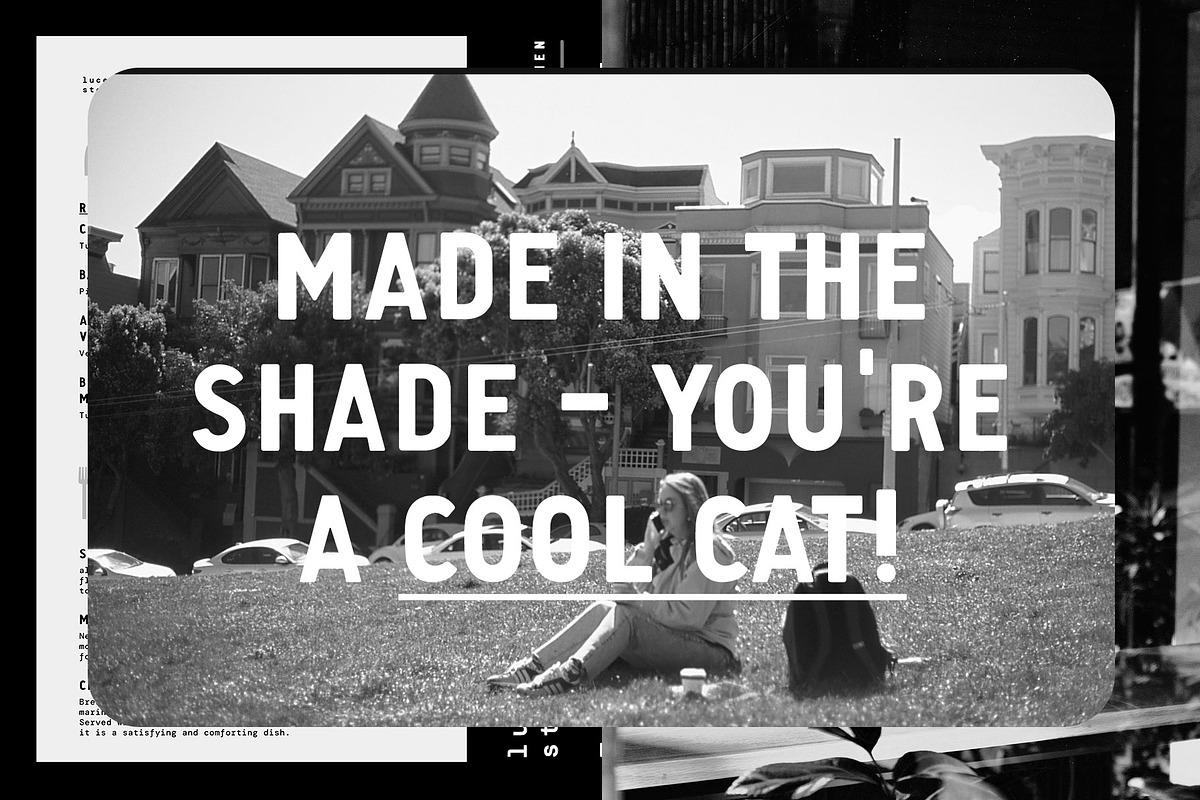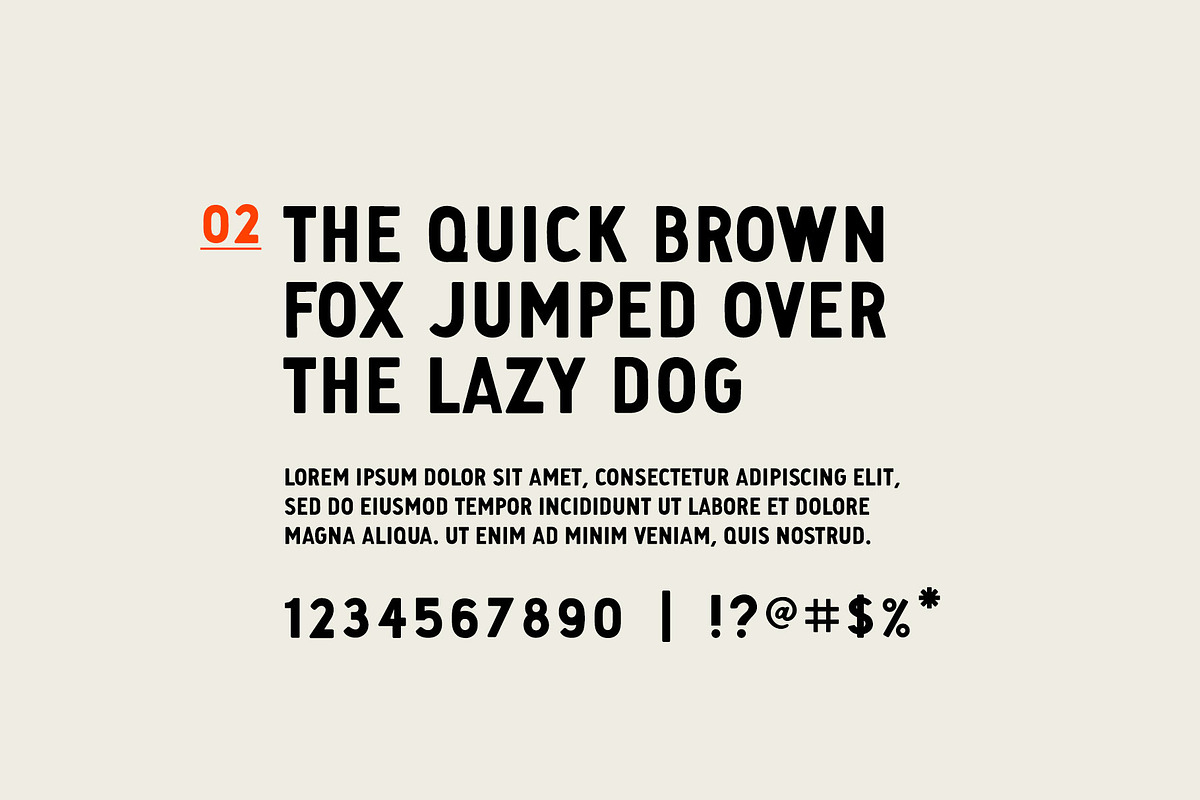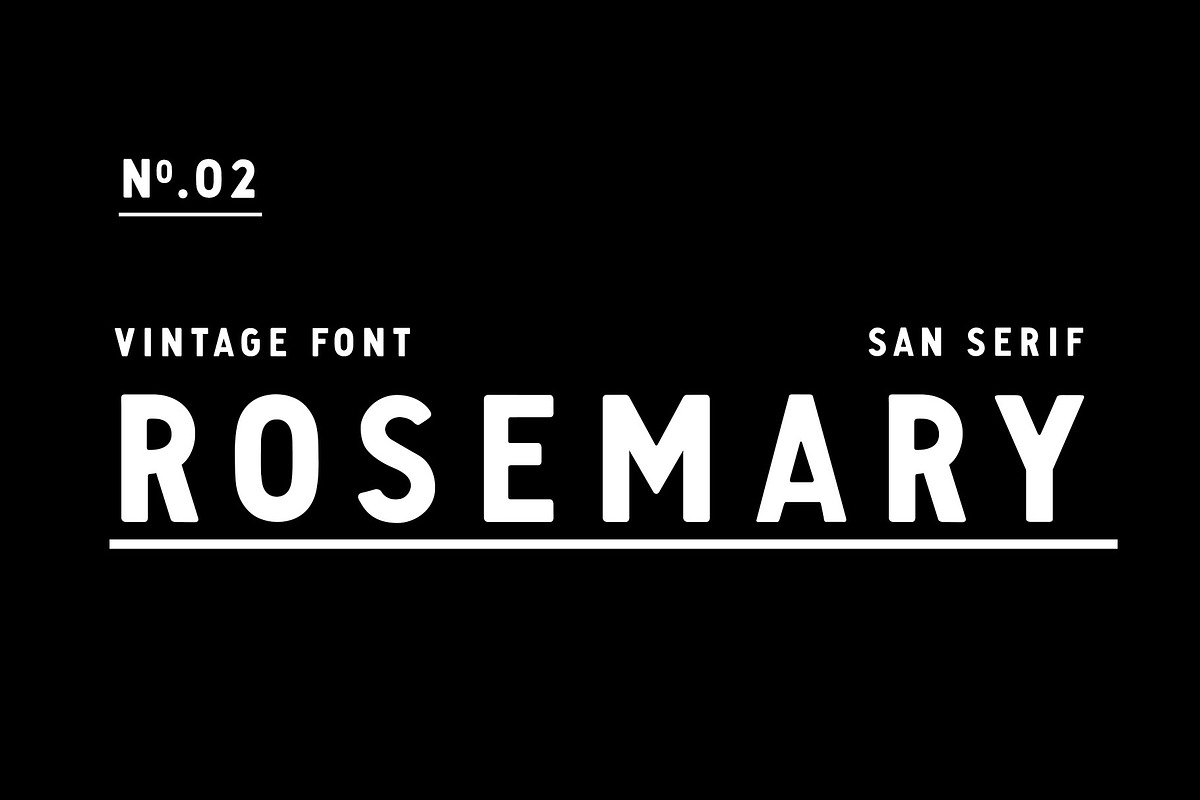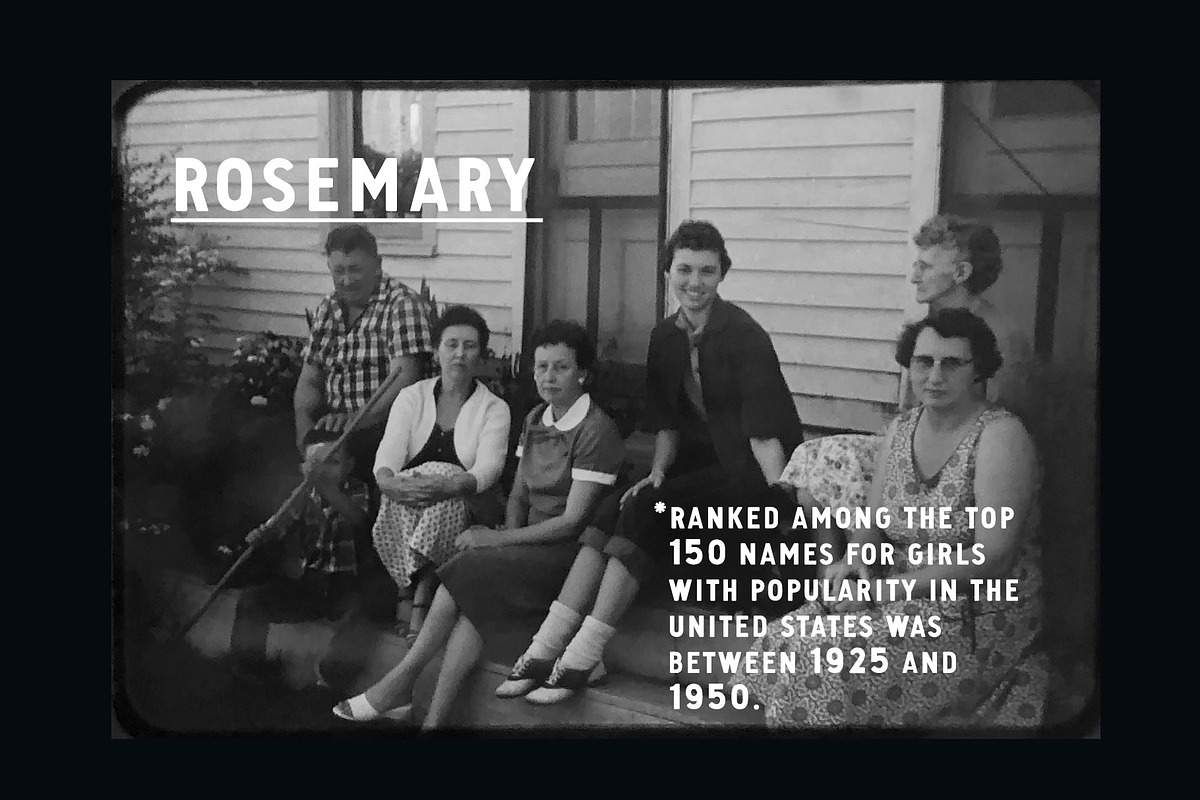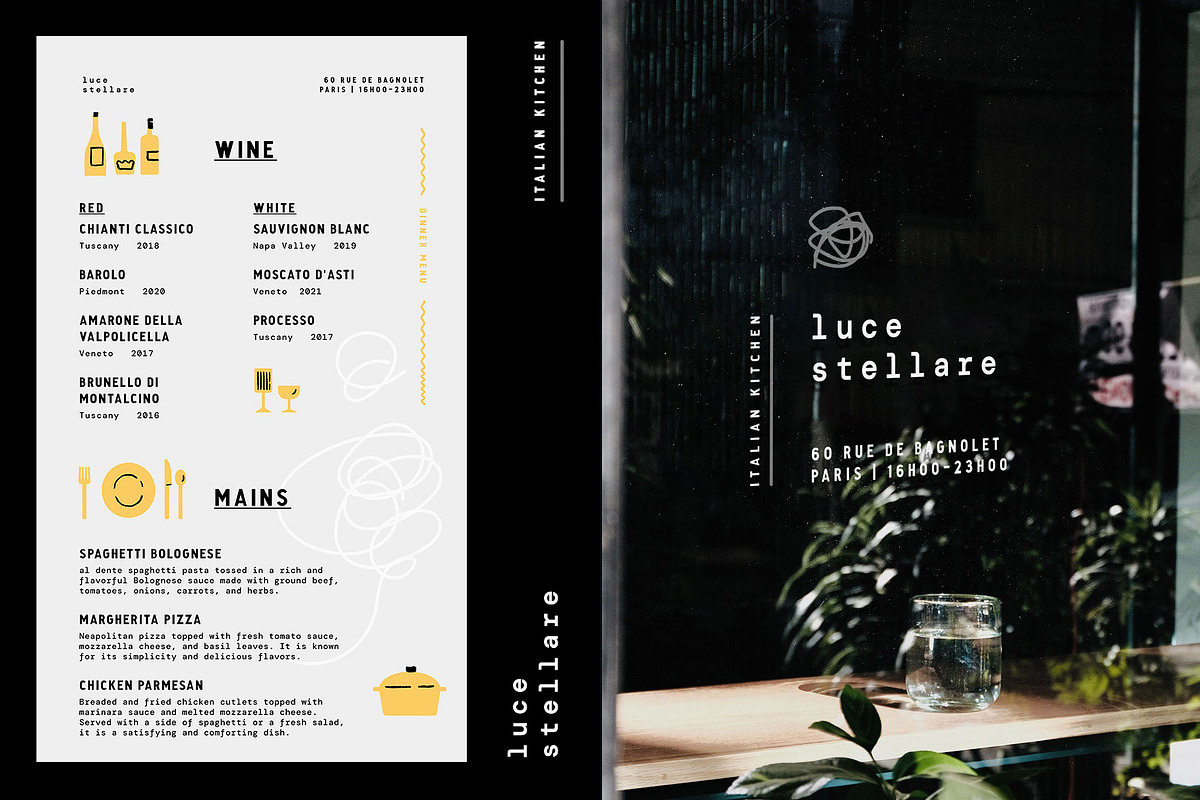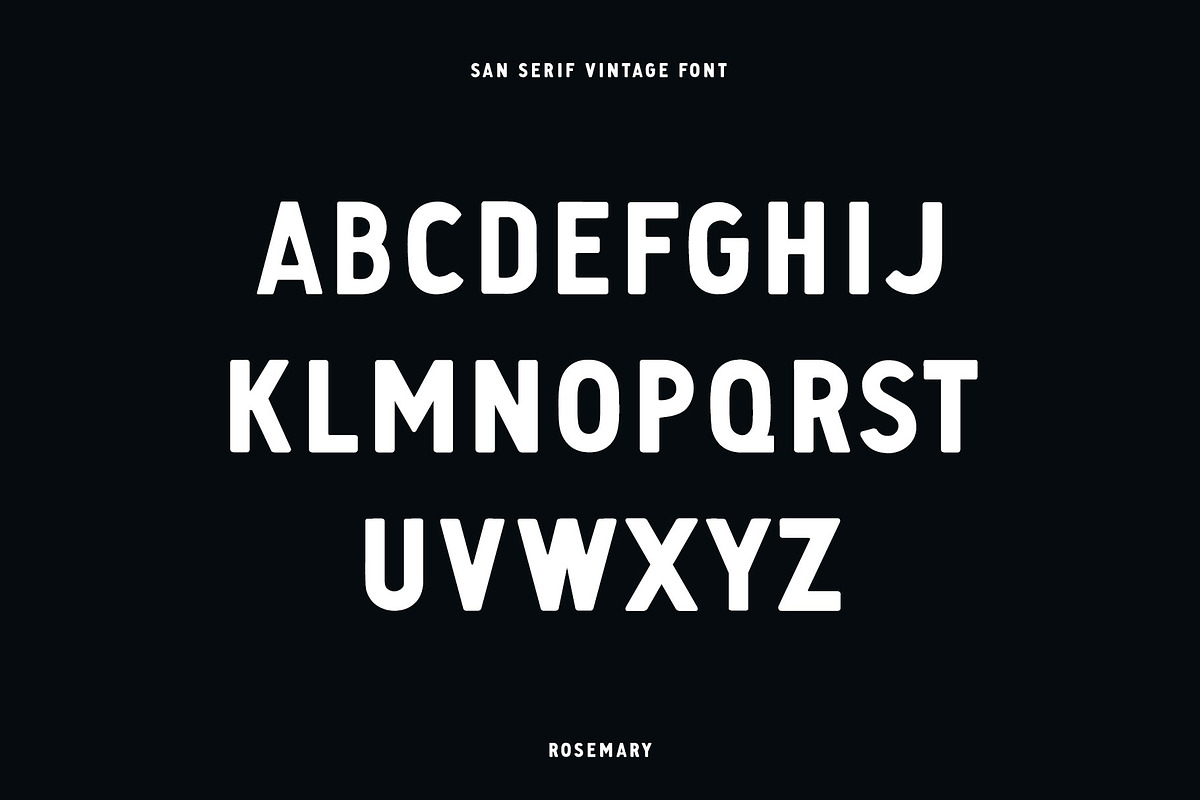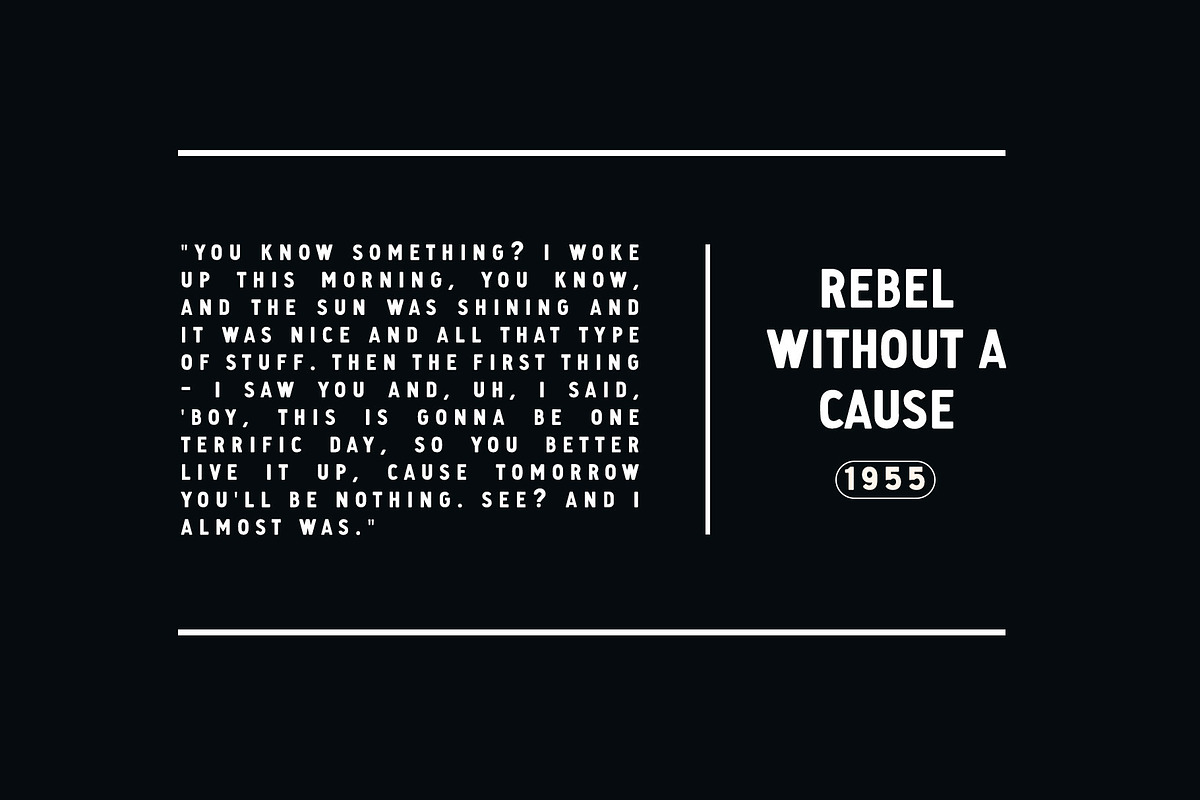
Rosemary - Vintage San Serif
Rosemary An uppercase san serif font inspired by vintage packaging. Includes A-Z, numbers & primary symbols. Each character was drawn by hand and refined digitally. Great font for logos, quotes, signs, titles, and, of course, packaging!